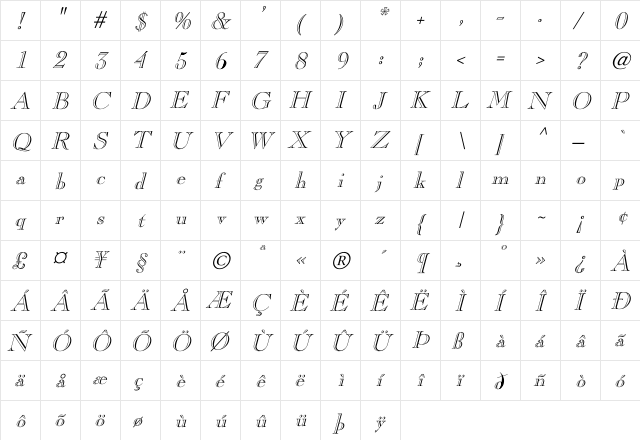
CaslonOpenFace Italic
Design Context for CaslonOpenFace Typeface
CaslonOpenFace offers clean, dependable letterforms without strong stylistic allegiance, making it a practical choice for designers who need flexibility. Its italic angle brings a sense of urgency and motion to the letterforms.
Pro Tip: Try CaslonOpenFace for annotation and caption copy alongside an upright companion — the contrast in angle creates a dynamic but ordered typographic system.